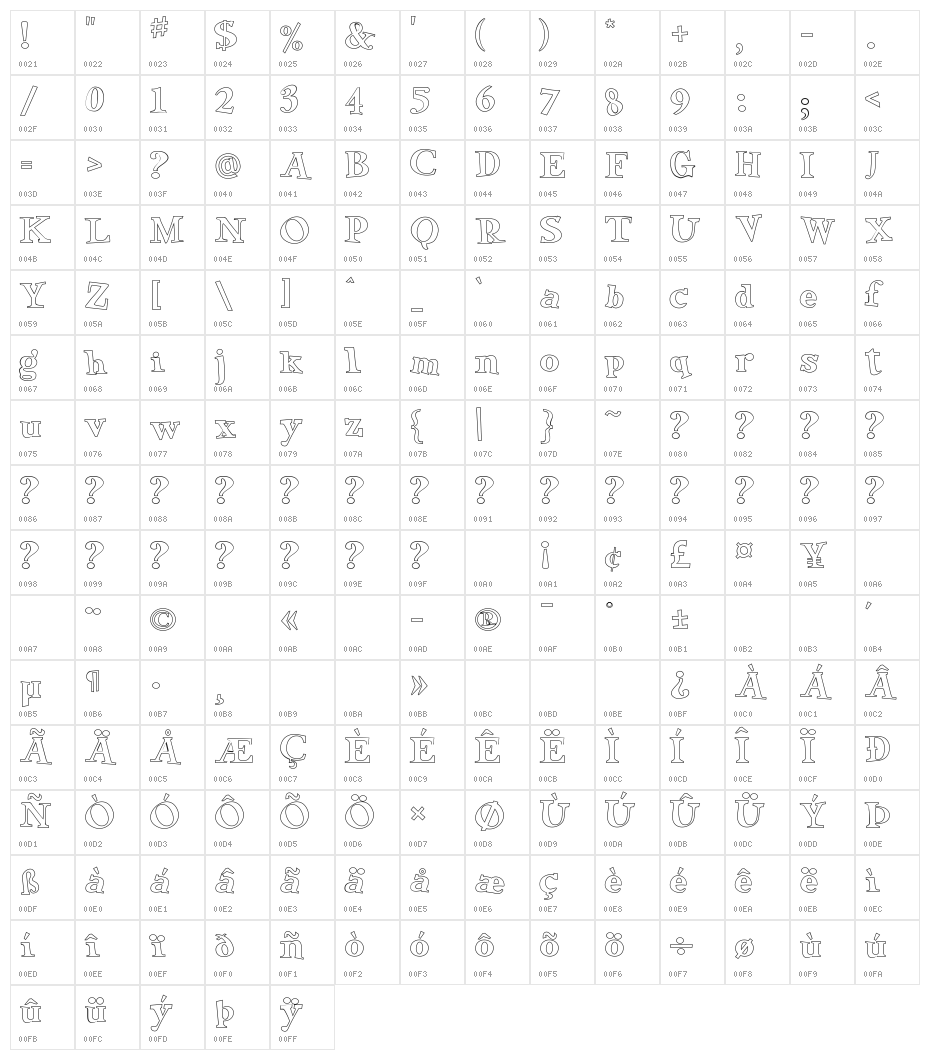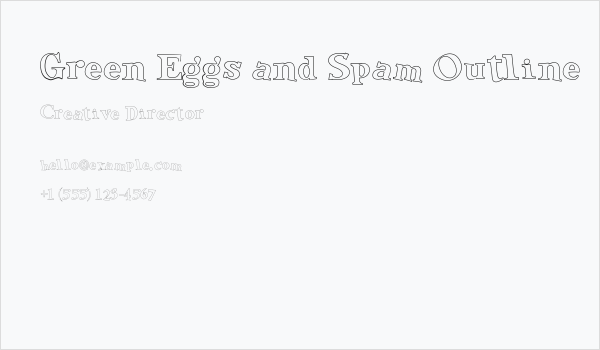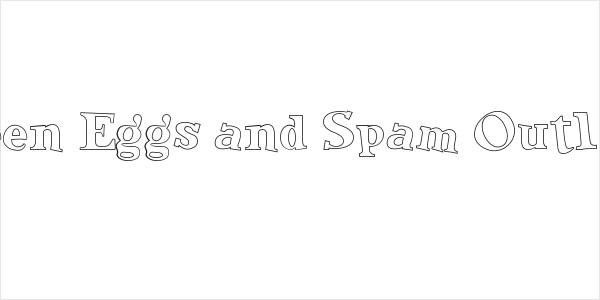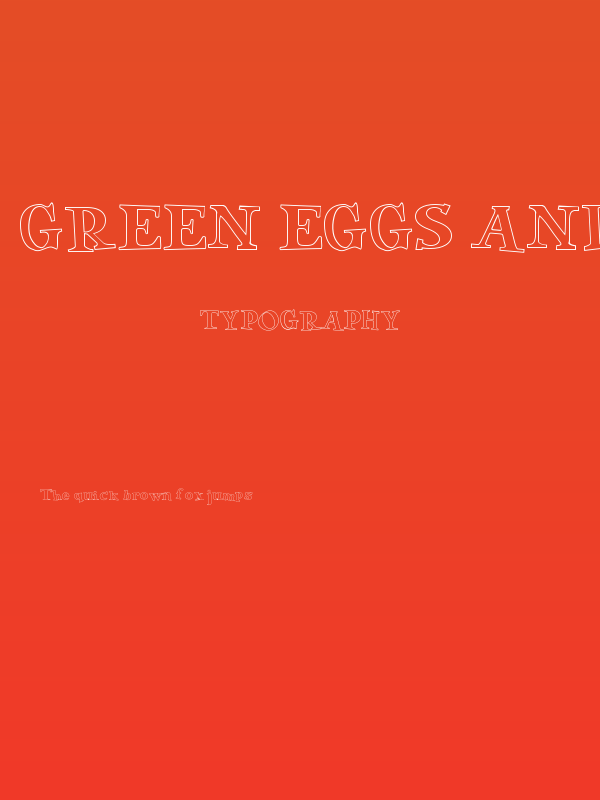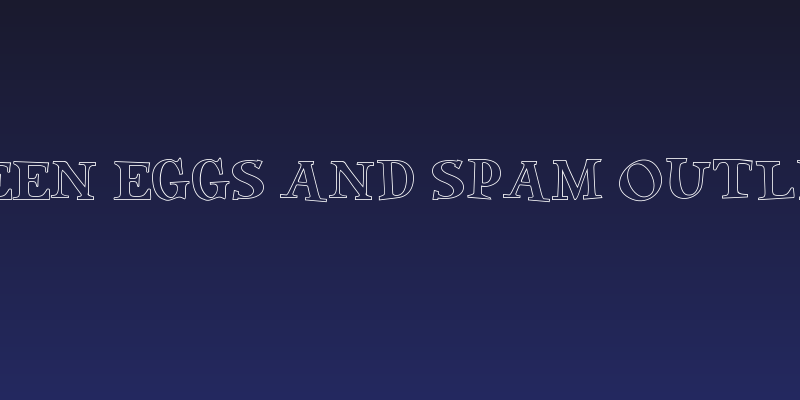
Green Eggs and Spam Outline Font
Green Eggs and Spam Outline Description
This playful and whimsical font features an outline style that gives it a unique and eye-catching appearance. The characters are bold and slightly irregular, adding a sense of fun and creativity. The uppercase and lowercase letters maintain a consistent style, with a slight tilt and exaggerated serifs that enhance its quirky charm. Numbers and special characters are designed with the same playful outline, making them stand out. This font is perfect for projects that require a touch of humor and lightheartedness, such as children's books, playful branding, or creative posters.
| Overall Style | Whimsical |
| Proposed Projects | Ideal for children's books, playful branding, creative posters, and fun invitations. |